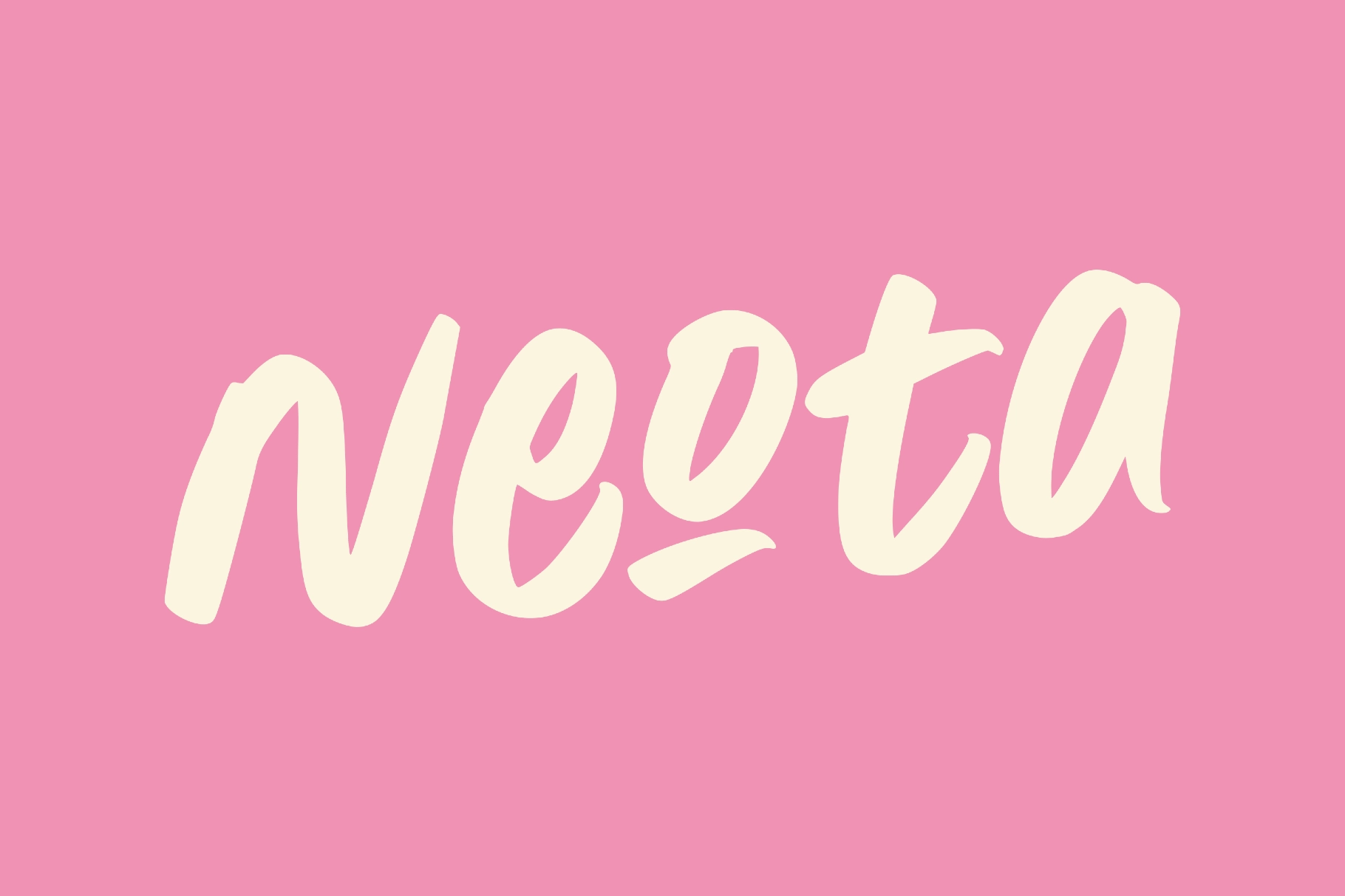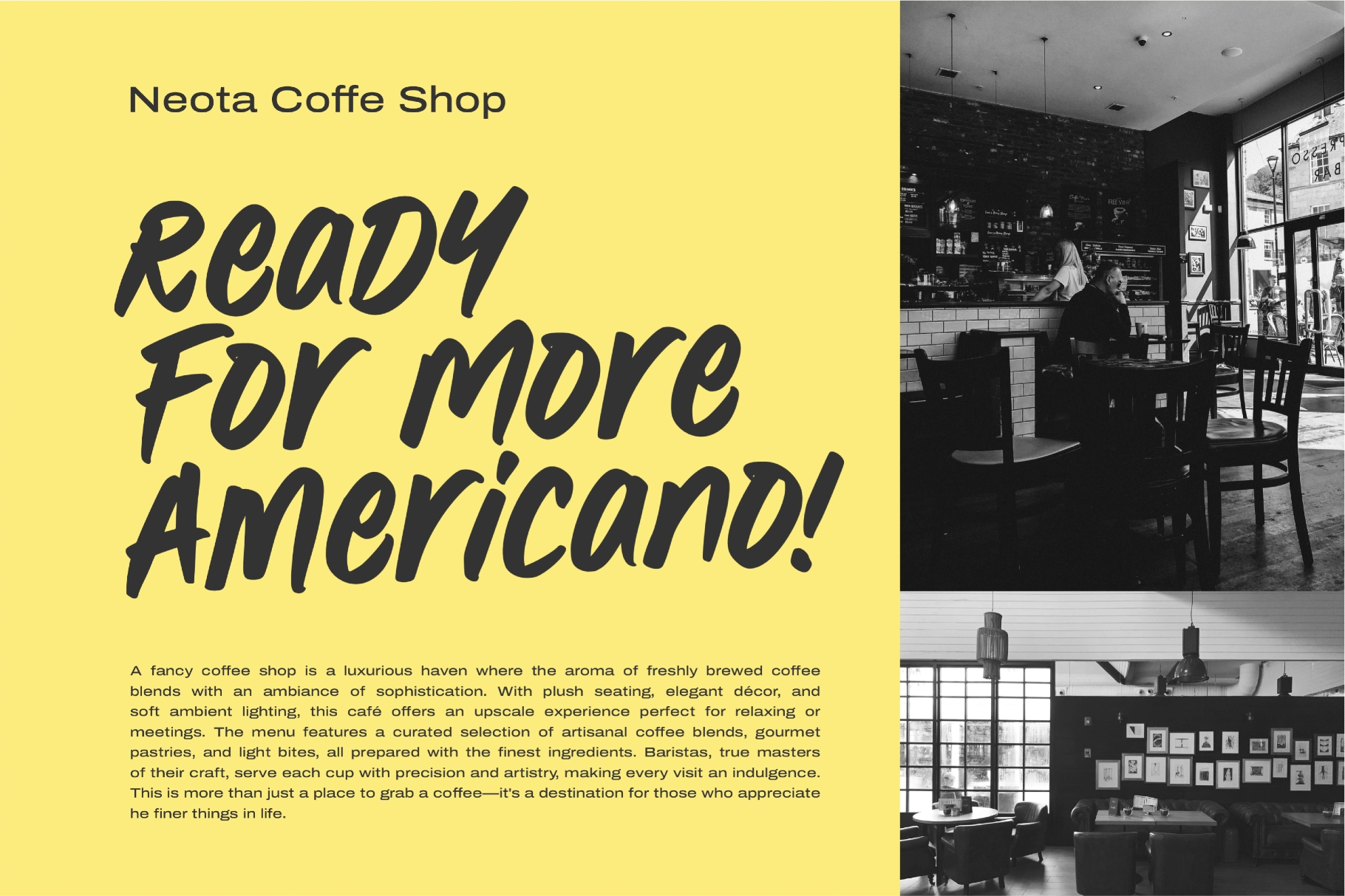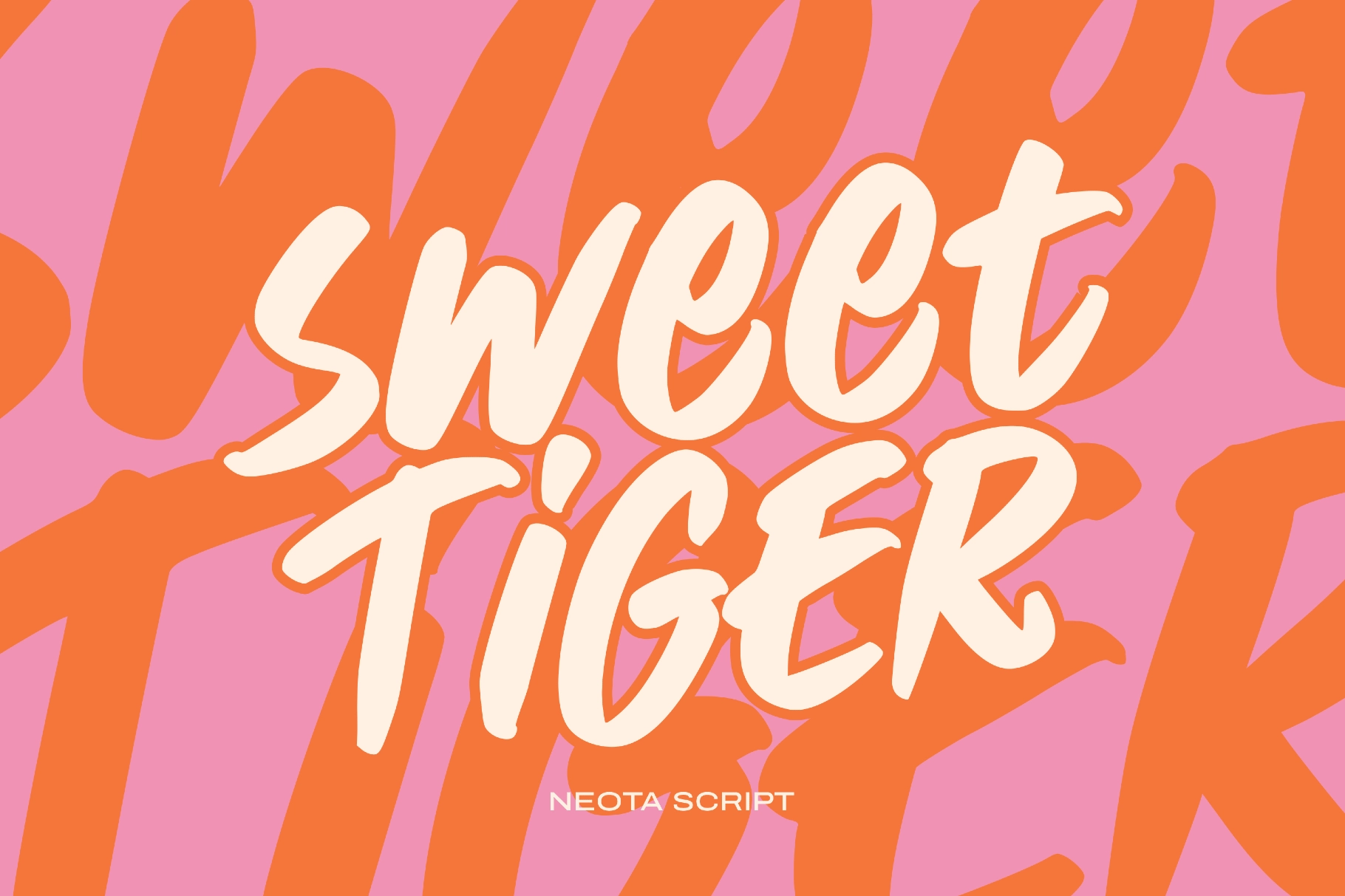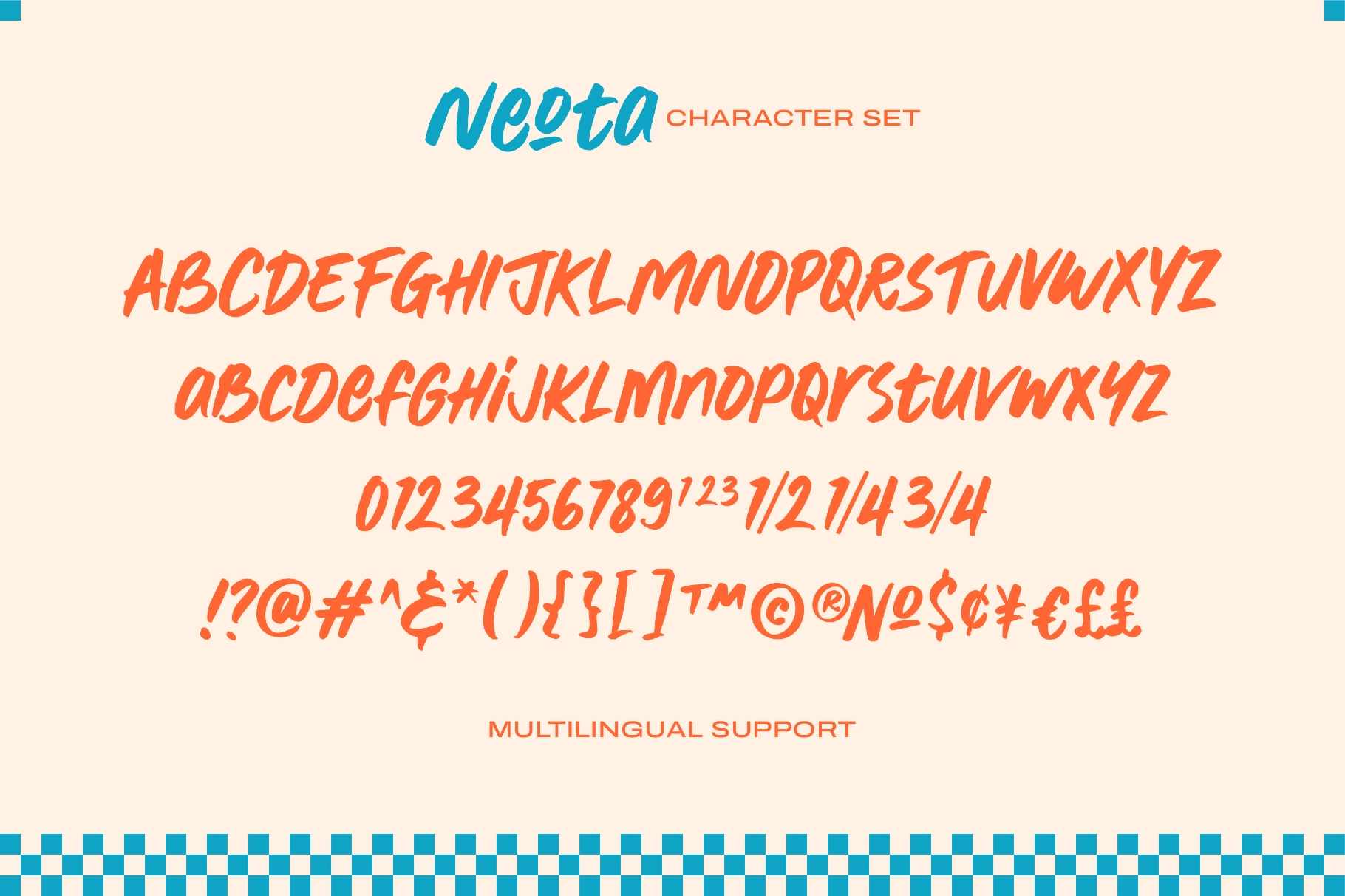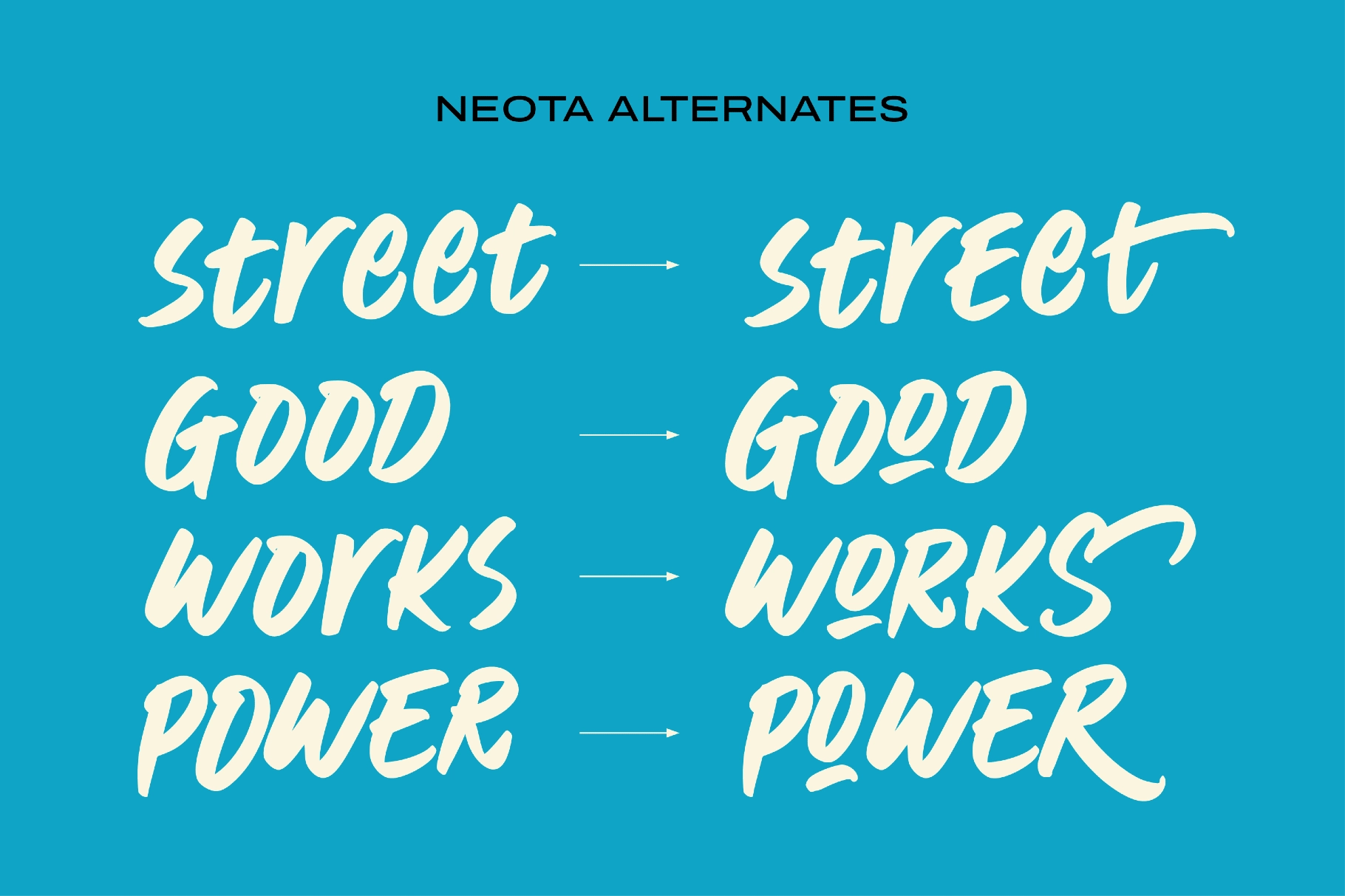
Neota - Brush Script Font
A bold brush script with fast strokes, chunky curves, and an easy handwritten swing. The script style is loud, sunny, and confident, with alternate characters that help words look less copy-pasted and more like they were painted in one good mood.
Neota is a strong pick for coffee shop branding, food packaging, drink labels, posters, merch graphics, landing page heroes, social media quotes, event promos, book covers, stickers, greeting cards, and product campaigns. It has the right kind of casual punch for headlines that need personality without getting too precious about it.
• Numerals & punctuation
• Stylistic alternates
• 300+ glyphs